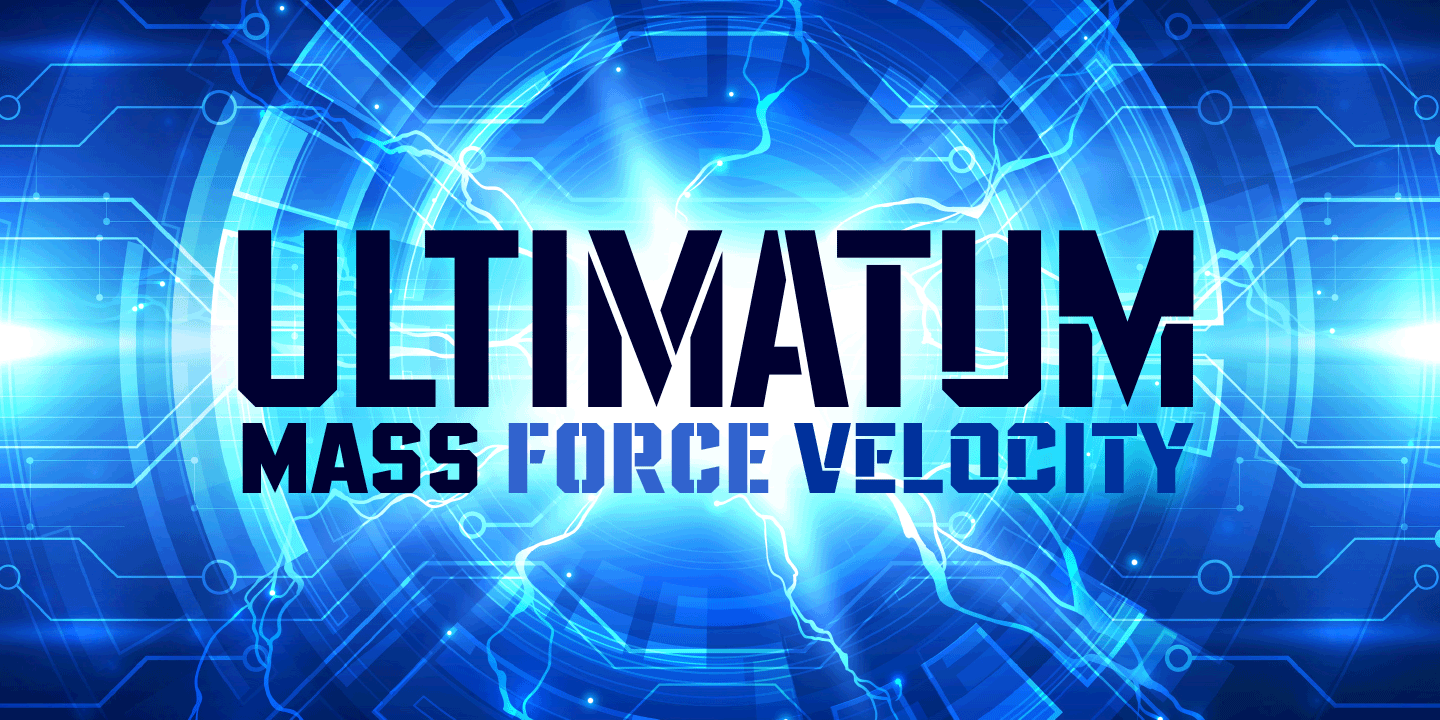
Ultimatum MFV Font is ideal for urgent business communications, deadline-driven project materials, high-stakes marketing campaigns, critical alert systems, emergency response branding, final notice documents, decisive leadership presentations, time-sensitive promotions, ultimate challenge events, and compelling call-to-action graphics.
What makes Ultimatum MFV Font exciting is its commanding urgency and decisive authority that embodies the essence of critical moments with uncompromising clarity and final determination. This powerful typeface captures the spirit of ultimate decisions with its bold character forms and deadline-inspired proportions that evoke ticking clocks, sealed envelopes marked "urgent," and the kind of compelling pressure that demands immediate action and decisive response. The font's authoritative character creates an immediate sense of urgency and the kind of commanding presence that cannot be ignored or delayed.
Ultimatum MFV Font family includes regular weight with decisively crafted character designs featuring urgent proportions and commanding styling. The typeface maintains excellent impact and readability while showcasing its distinctive critical personality through boldly designed letterforms that seem charged with the electric energy of final moments and irreversible decisions.
Crisis communication professionals consistently choose Ultimatum MFV Font Free Download for projects requiring authentic urgency appeal and decisive credibility. This remarkable typeface brings the power of final authority to brand communications, combining urgent aesthetics with commanding reliability to create compelling action-oriented experiences. The decisively designed characters ensure maximum urgency impact across all applications, making it essential for emergency services, deadline-driven businesses, and any organization seeking to communicate the transformative power of decisive action and the compelling urgency that comes from embracing critical moments through Ultimatum MFV Font Free Download.